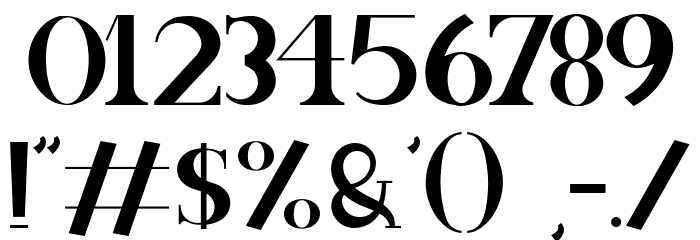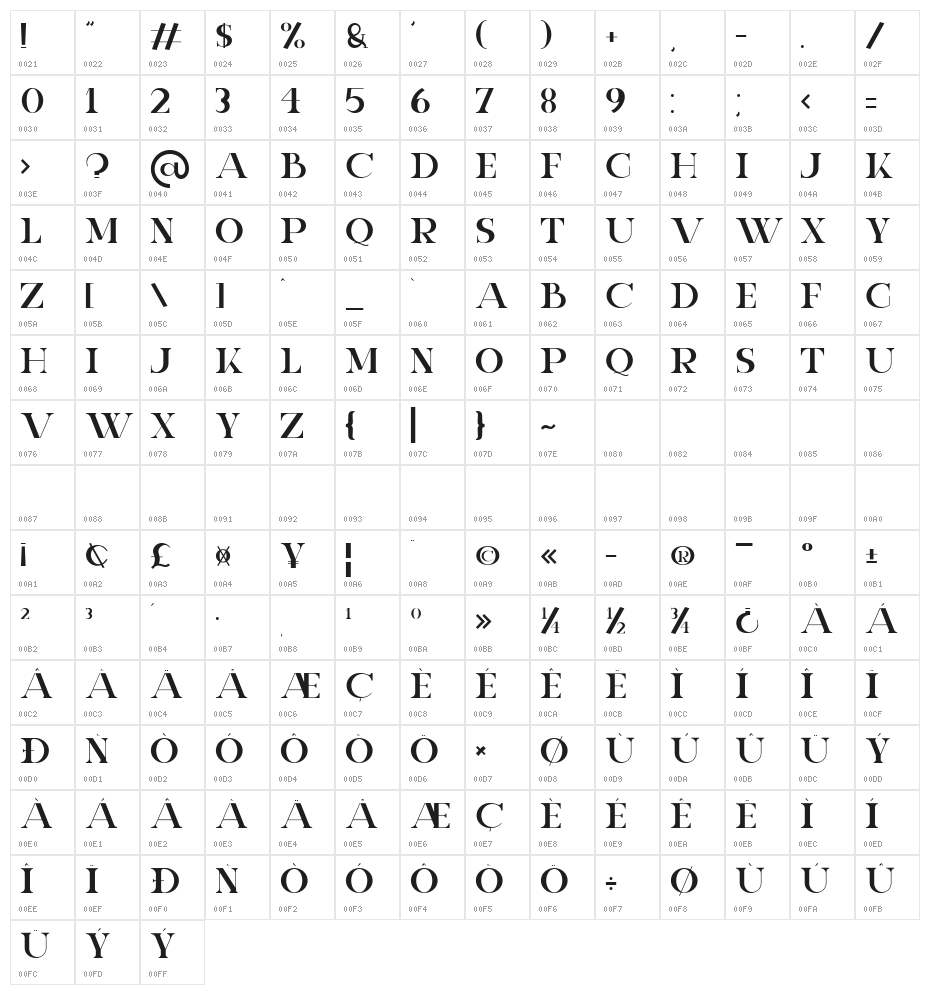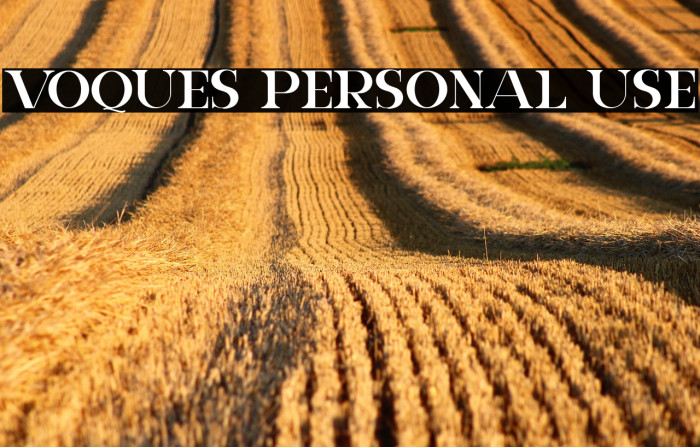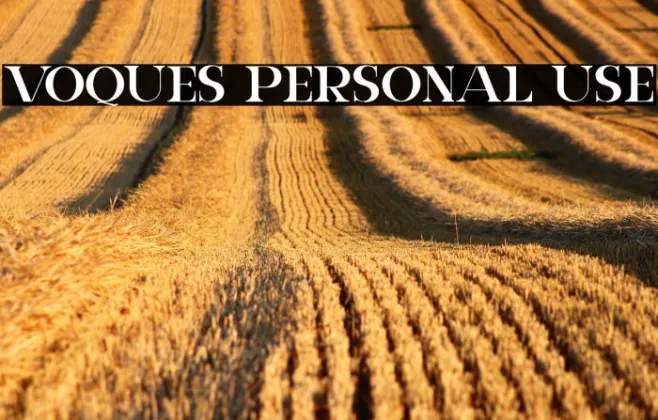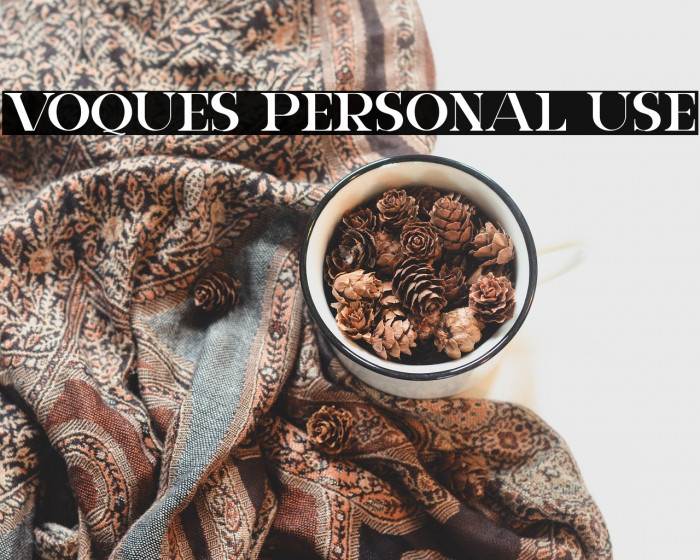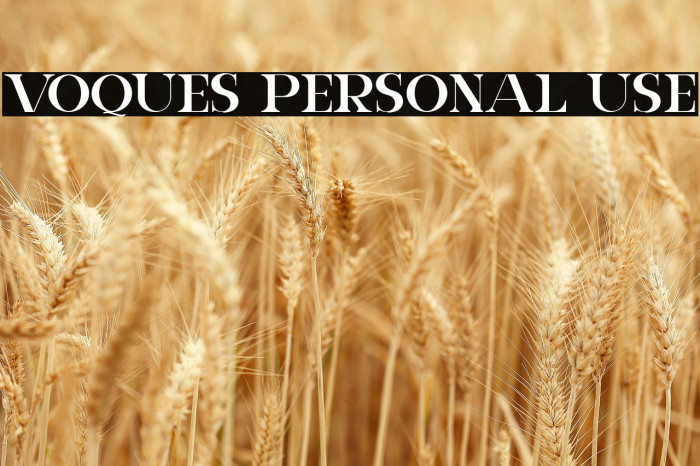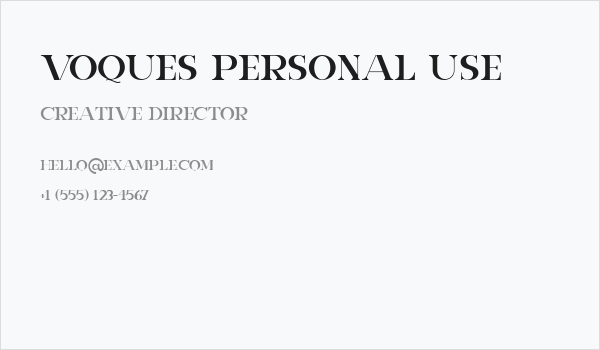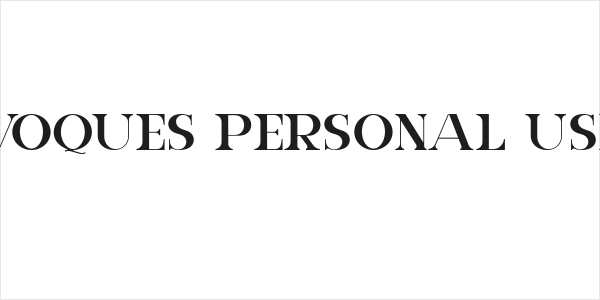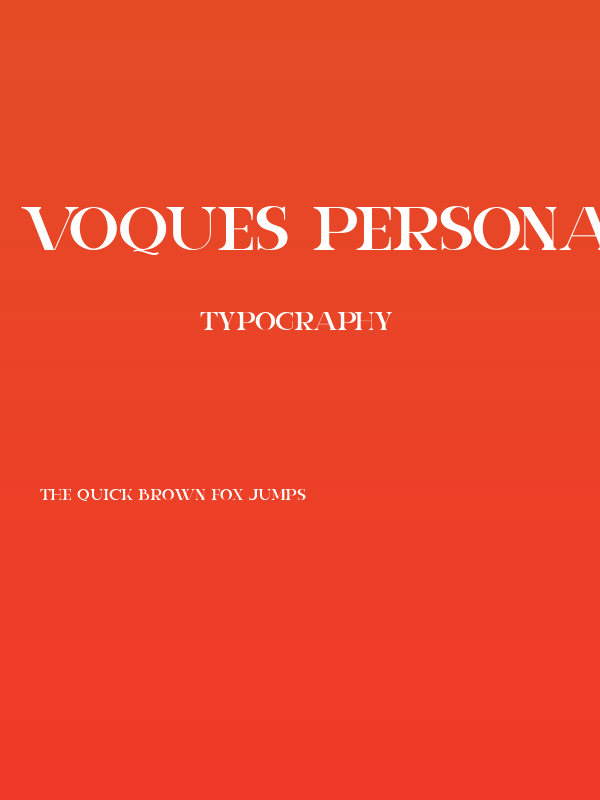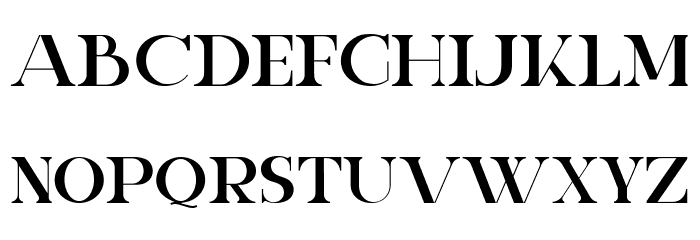
VOQUES Personal Use Font
VOQUES Personal Use Description
This font features a bold and elegant serif style with high contrast between thick and thin strokes, giving it a sophisticated and classic appearance. The uppercase letters are characterized by sharp, angular serifs and a strong vertical emphasis, while the lowercase letters maintain a consistent style with slightly more rounded forms. The numerals are designed with a similar high contrast, making them stand out prominently. Special characters are crafted with the same attention to detail, ensuring a cohesive look across all glyphs. This font is ideal for projects that require a touch of elegance and formality.
Overall StyleClassic
Use CaseHeadlines, Logos, Editorial design
Proposed ProjectsIdeal for luxury branding, editorial design, wedding invitations, and high-end product packaging.